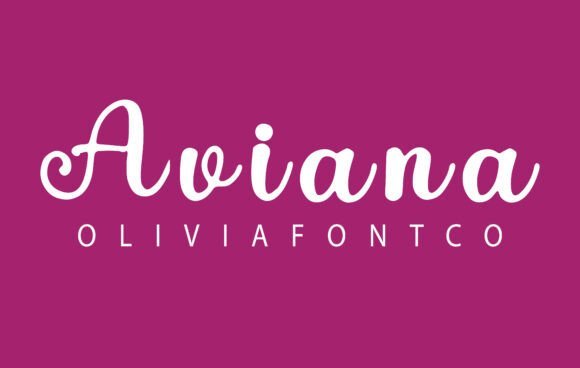
Introduction to Aviana Font
Aviana font is an authentic handwritten font with a romantic touch.
Key Features of Aviana Font
Why Choose Aviana Font?
Aviana Font offers exceptional quality and versatility, making it a valuable addition to your design toolkit. Whether you’re creating for personal projects or commercial use, Aviana Font delivers professional results.